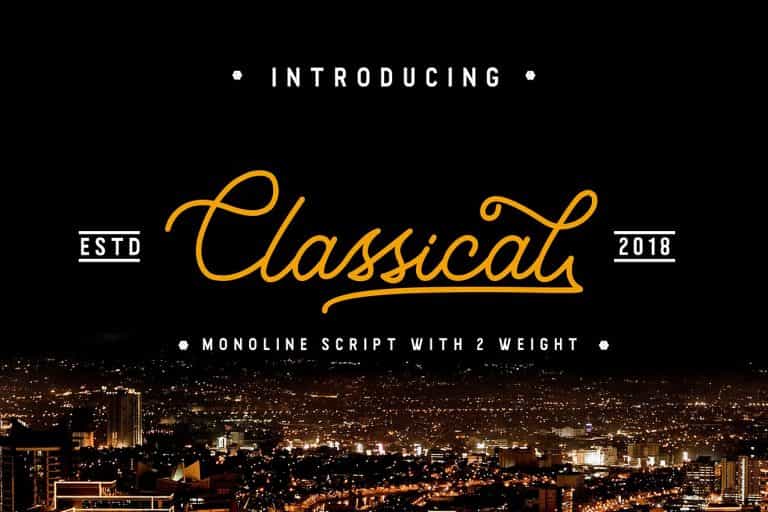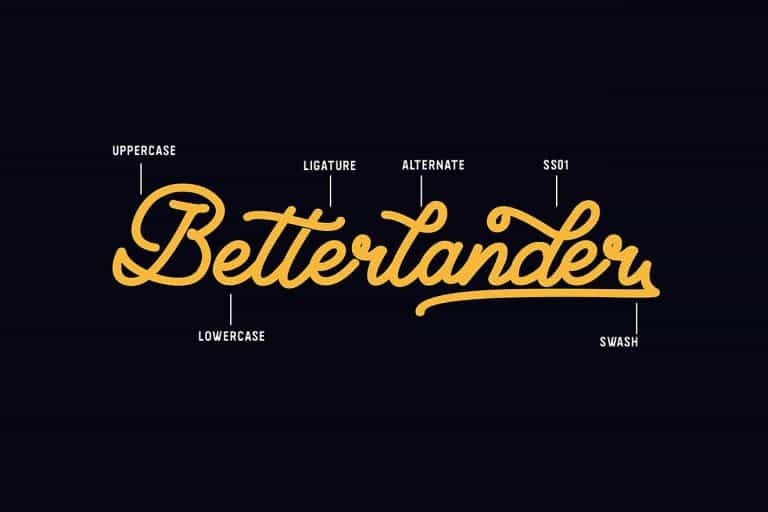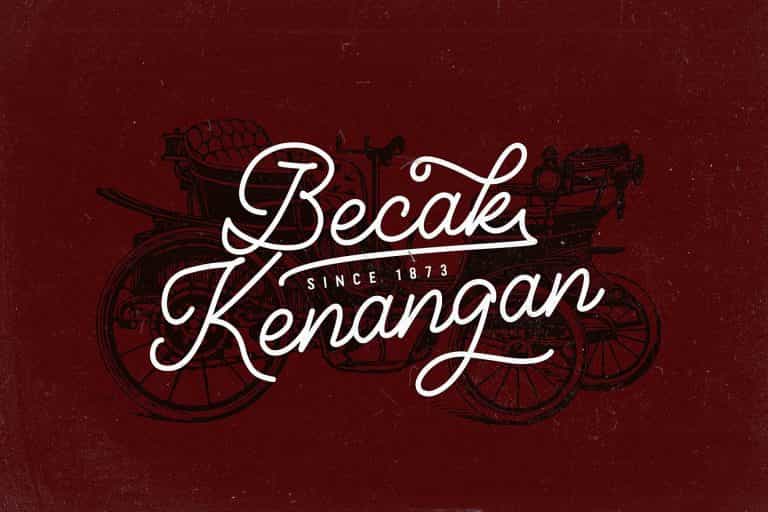
Introducing Classical Font! These are the classical ones made and shared by MLKWSN studios. Classical – Monoline Script that is written with a hand gesture. it’s Best monoline typeface. Classical font is the most suitable for Poster, Wedding, Branding, Logotype and Quotes.